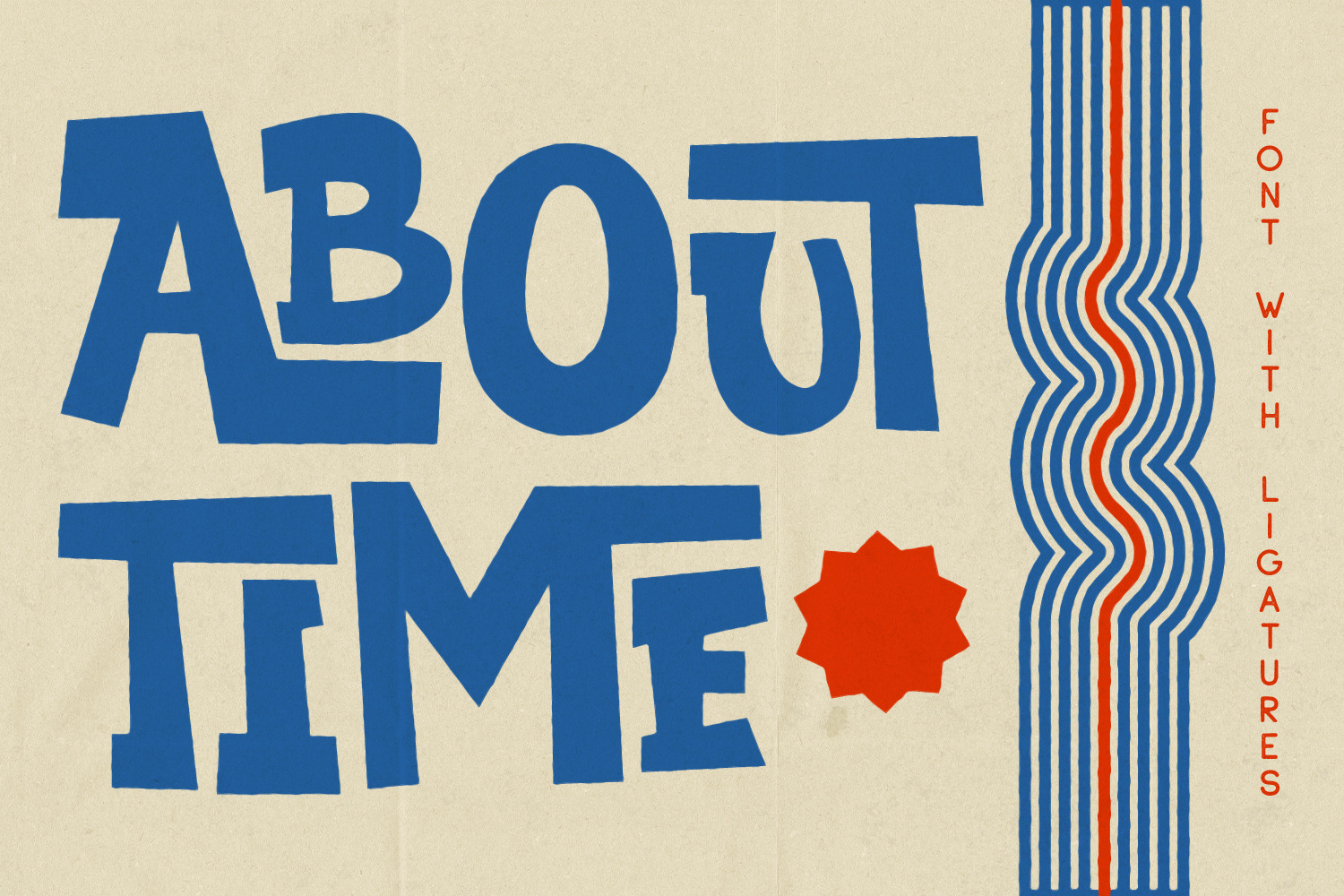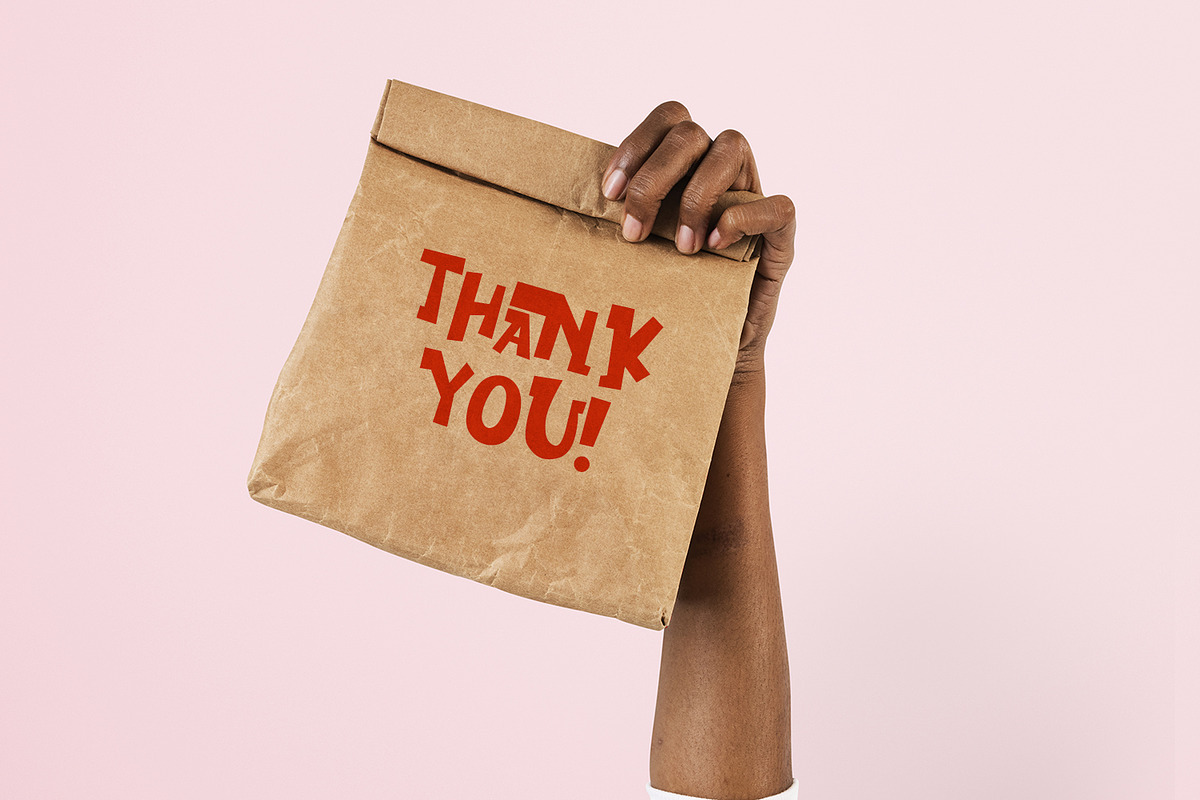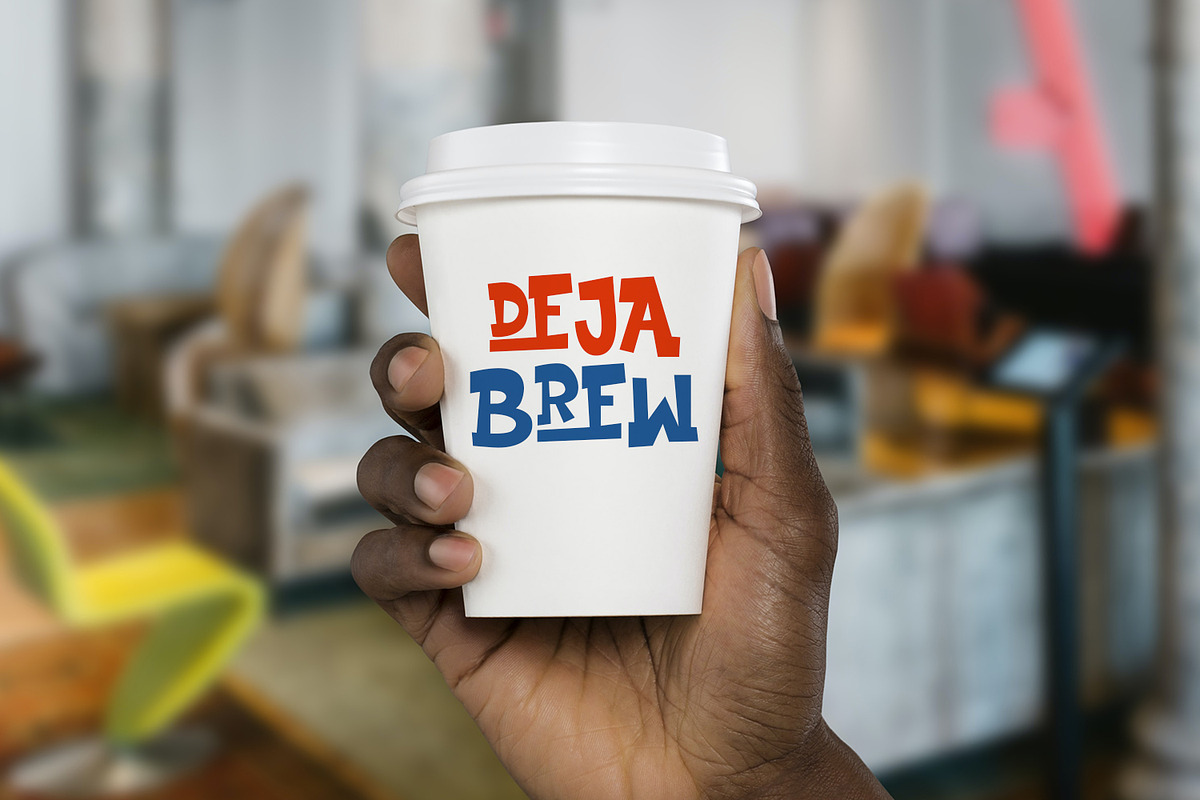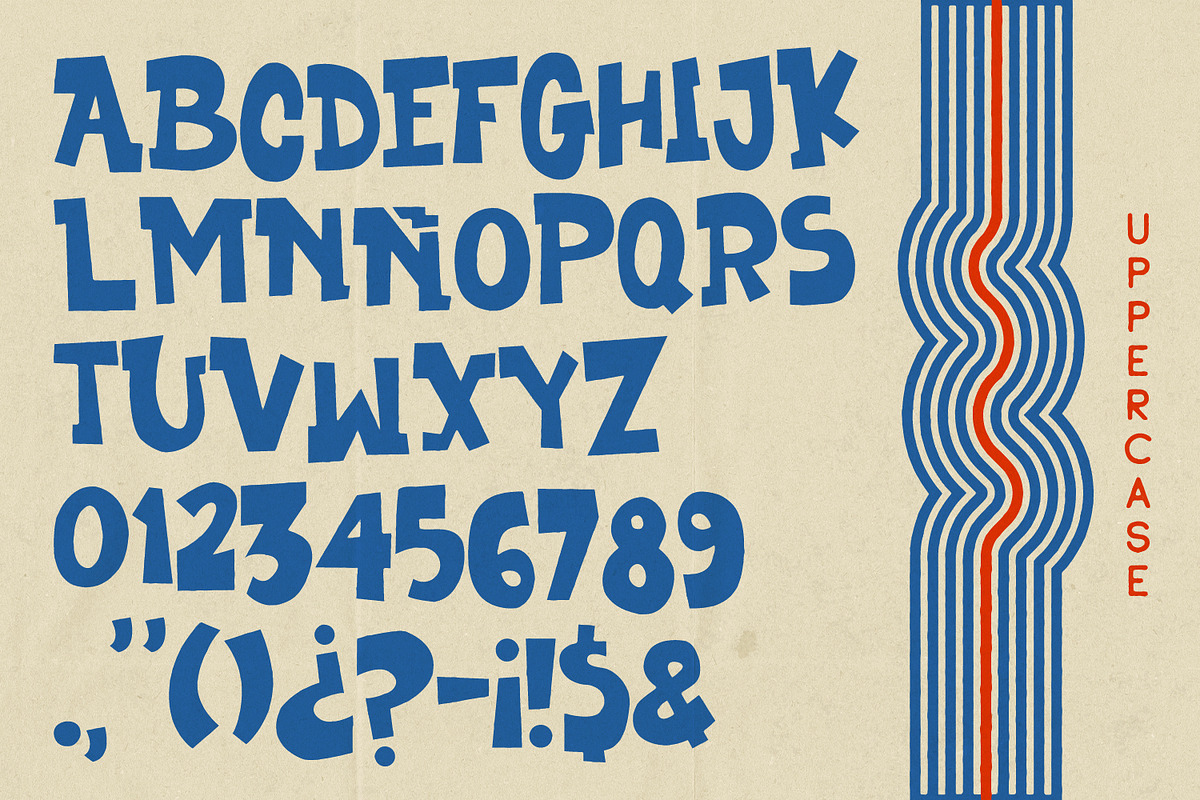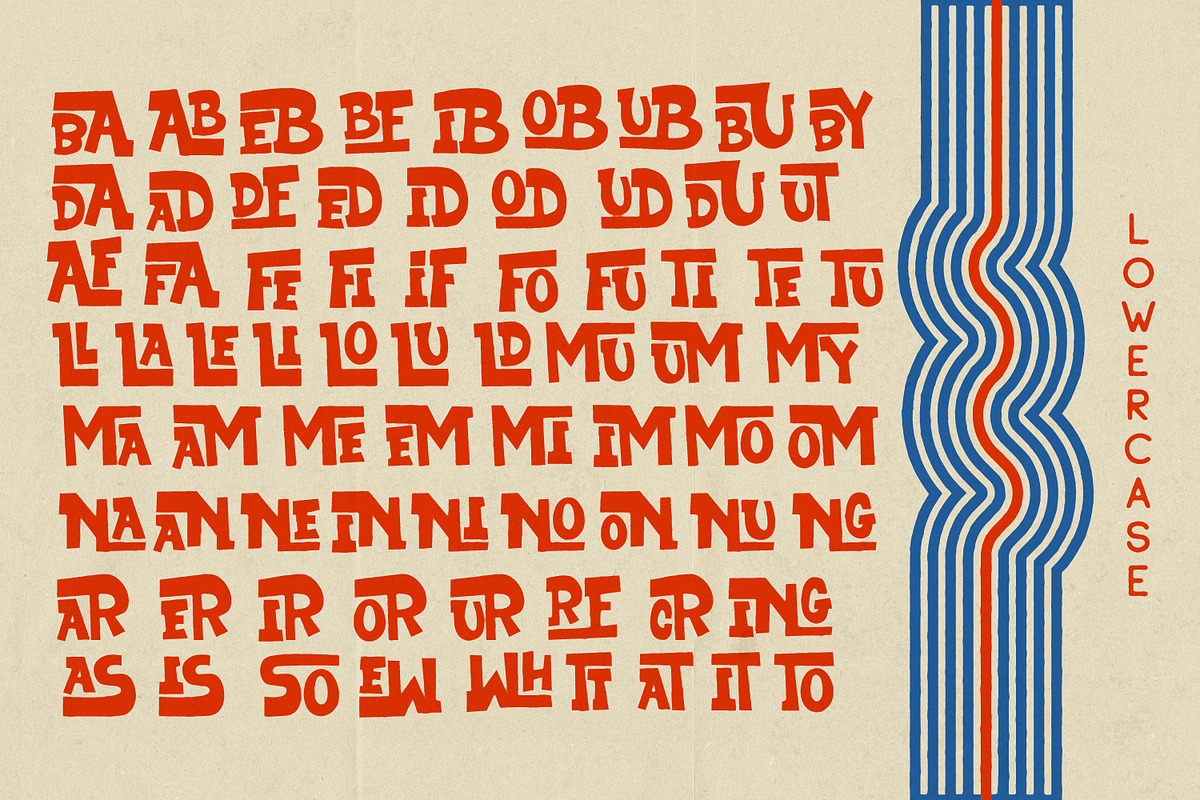
About Time - Bold Display font
About Time is a modern take on retro cartoon font styles. With this bold display font, you can bring all of your creations to life with a modern retro take. This beautiful typeface includes many alternatives to letter combinations when using it in lowercase, if you prefer your letters separate just use uppercase.